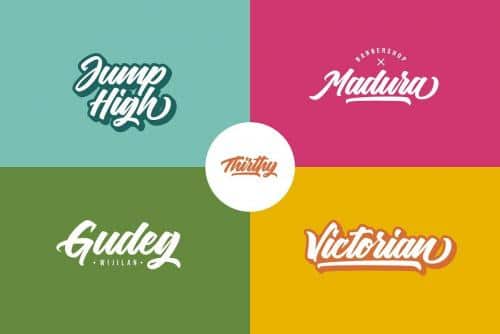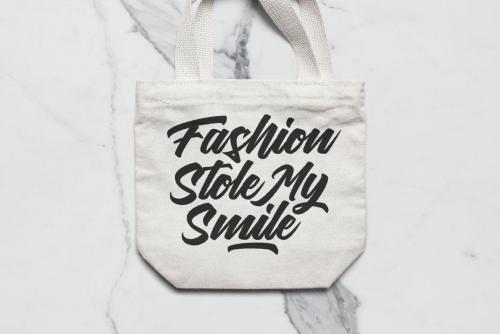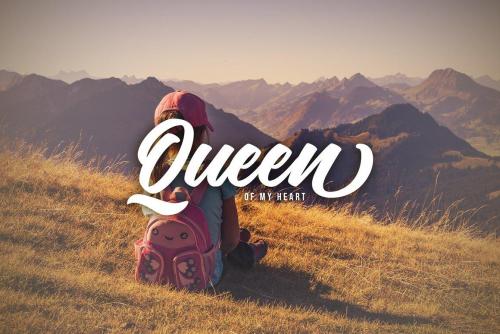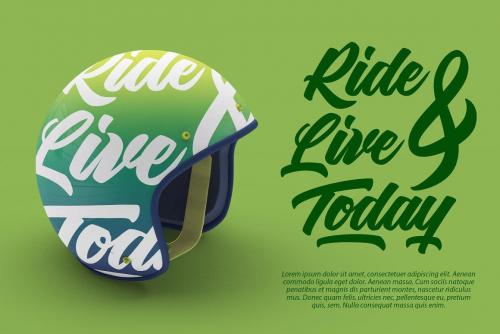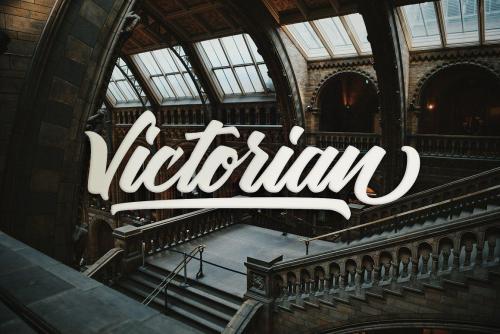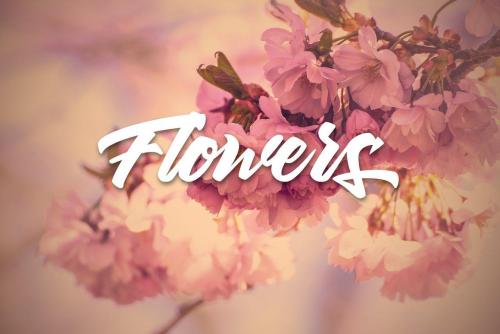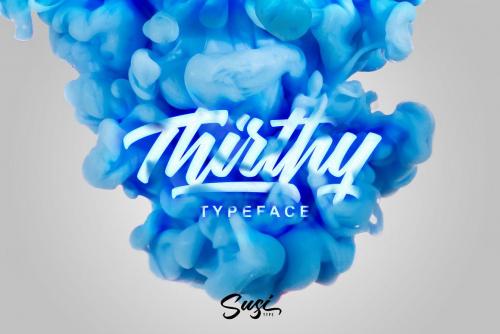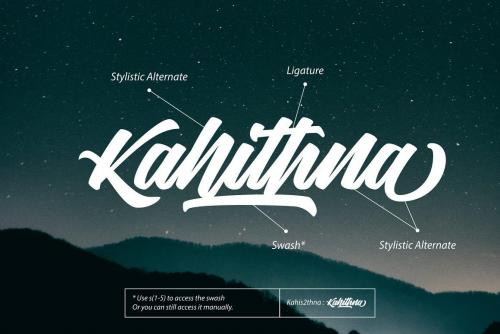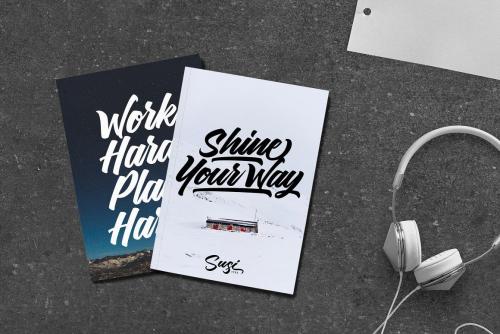
Introducing our font debut , Thirthy. A bold handwritten typeface that will very suitable for any projects of yours.
Perfect for display purposes like flyer, logotype, header, signage, etc. Works well on both modern and vintage style. You can check our preview samples for trigger some ideas.